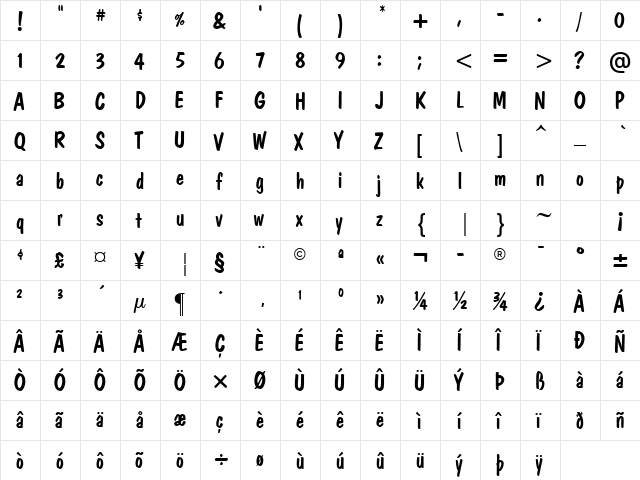
Dimitry High Regular
Design Context for Dimitry High Typeface
Dimitry High is a composed and adaptable typeface that performs quietly and consistently across a wide range of design contexts.